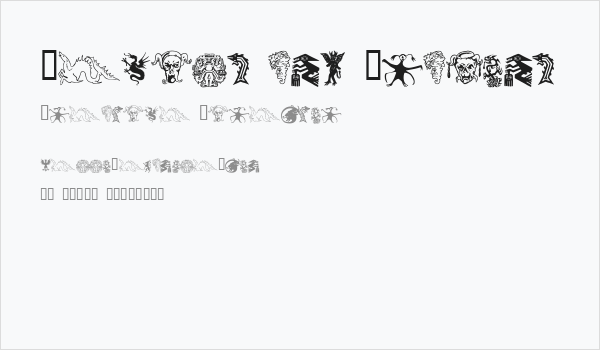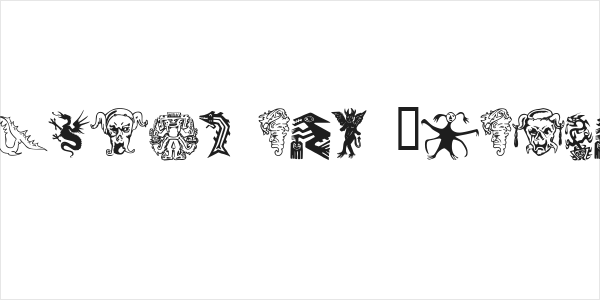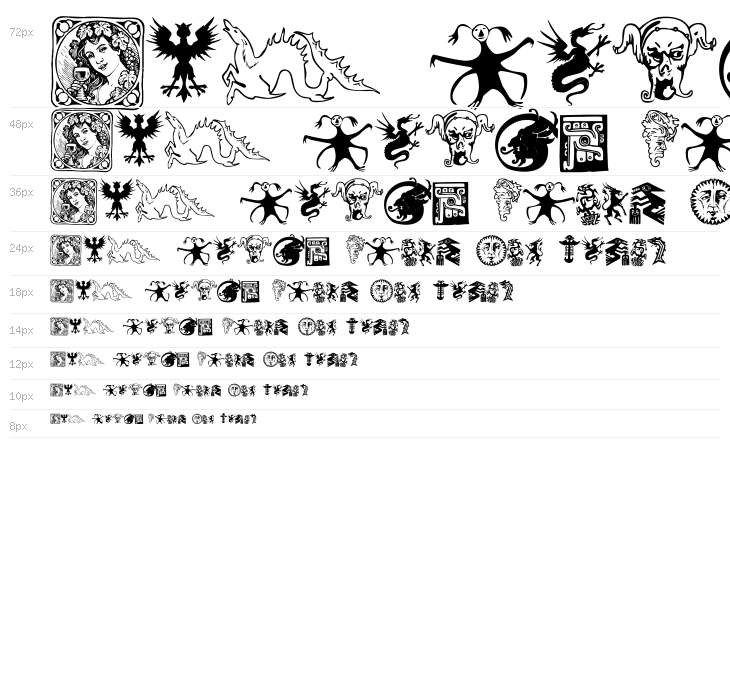
Devils and Dragons Font
Devils and Dragons Description
A highly decorative and illustrative font featuring intricate designs of devils, dragons, mythical creatures, and ornate motifs in place of standard alphanumeric characters. Each glyph is a unique, detailed artwork rather than a traditional letterform, making it suitable for ornamental or thematic use.
| Overall Style | Decorative, Fantasy, Mythical |
| Use Case | Logos, Headlines, Posters, Themed graphics |
| Proposed Projects | Fantasy book covers, game titles, themed event posters, decorative initials, or tattoo designs. |